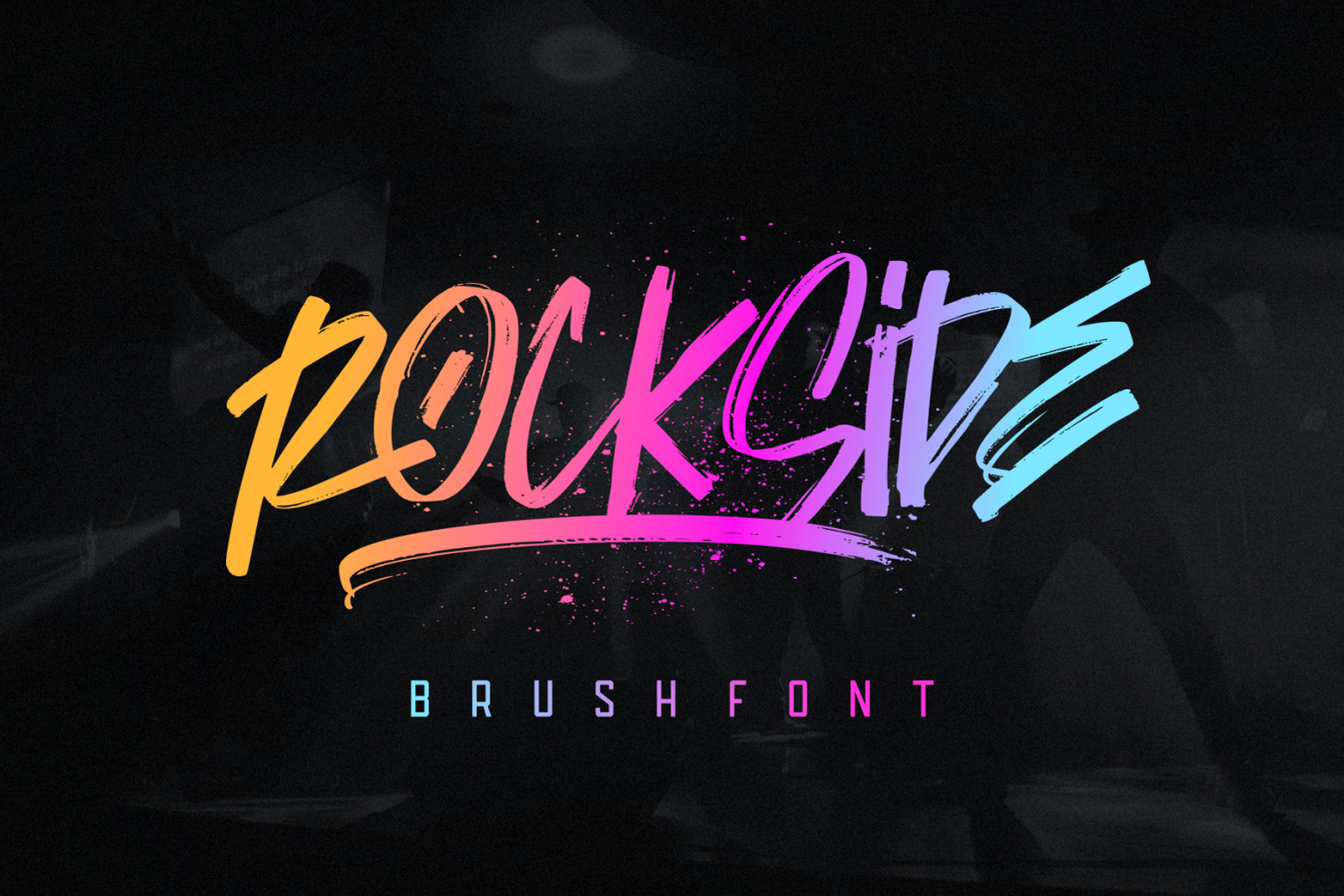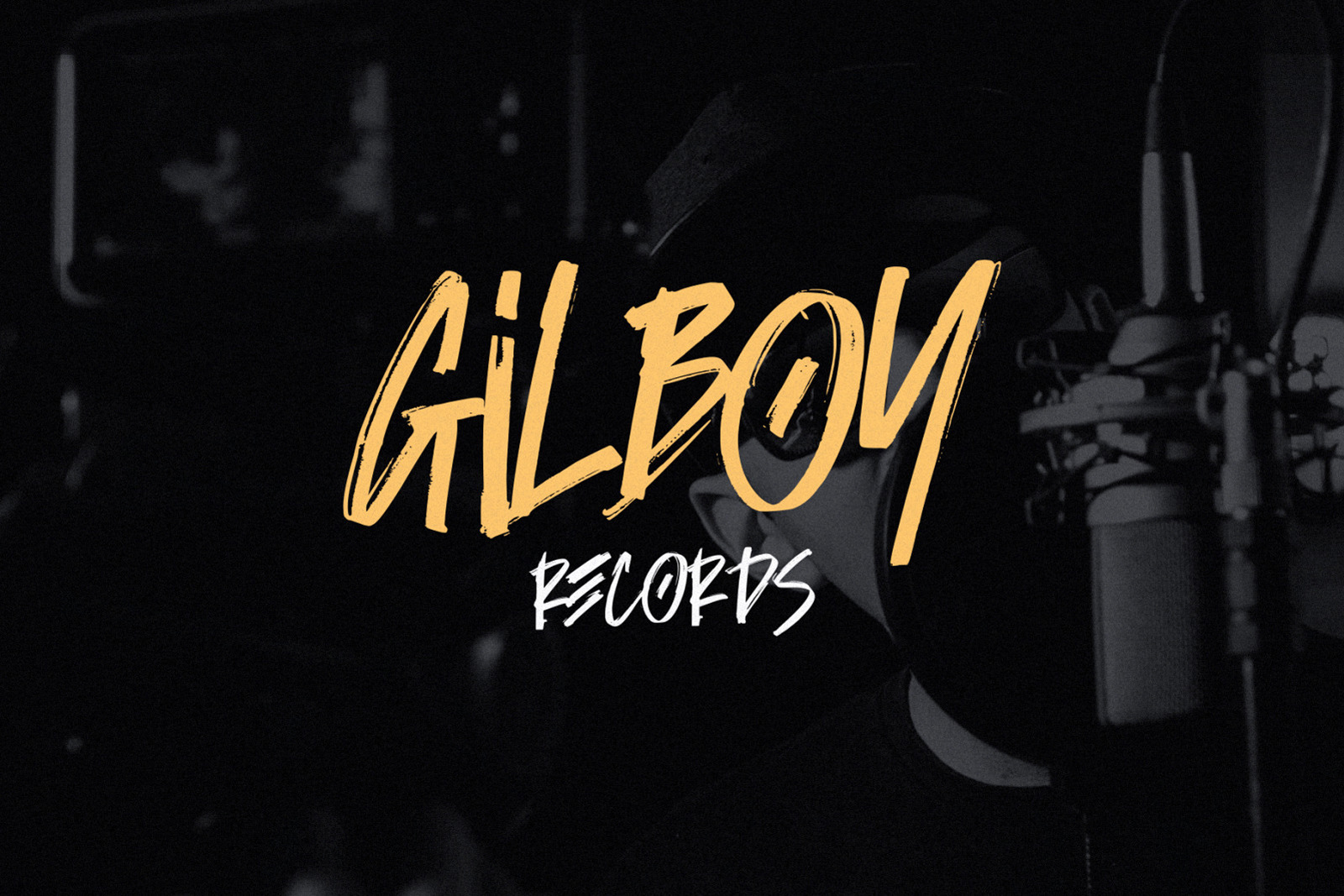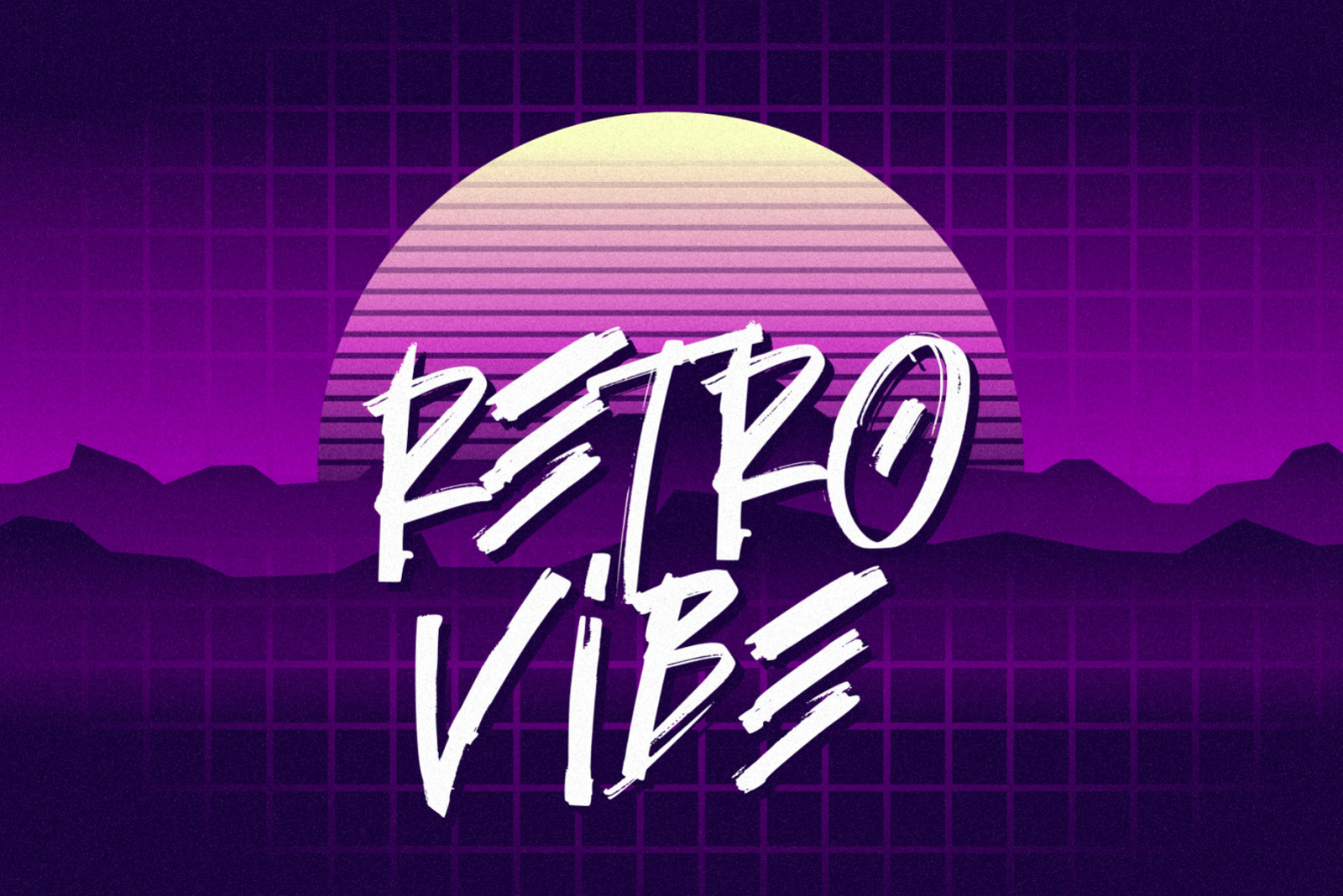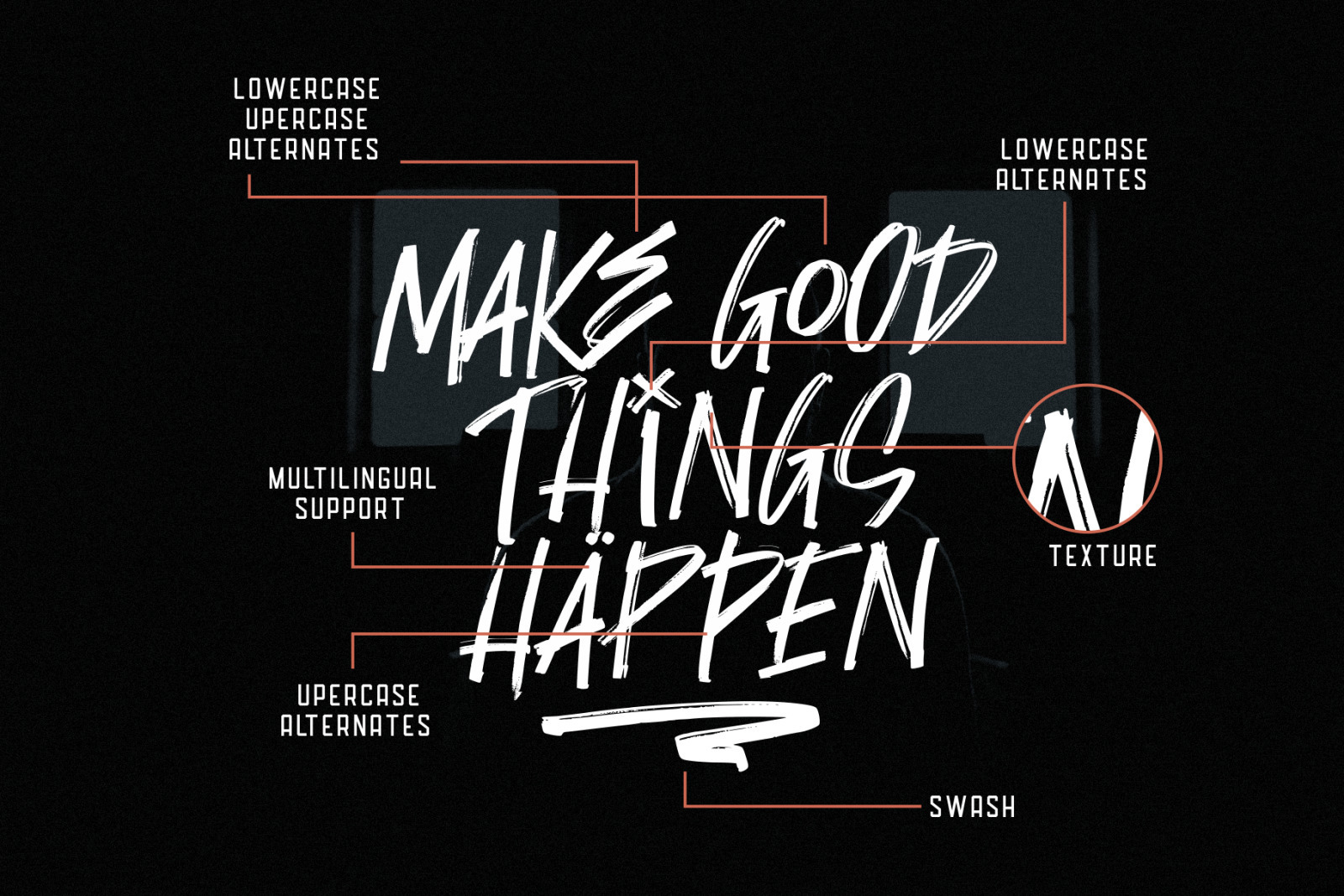
Rockside Brush Font
Introduce the Rockside font with a texture brush designed to give the impression of urban, young, and sloppy. This font is suitable for brands, apparel, clothing, logos and others. This font is also available for swashes.
Feature:
Uppercase & Lowercase
Number
Punctuation.
Swashes
Include A lot of alternates
Multilingual Support (ÀÁÂÃÄÅÇDÐEÈÉÊËIÌÍÎÏNÑOØÒÓÔÕÖUÙÜÚÛWYÝŸỲŸÆŒßÞþ)